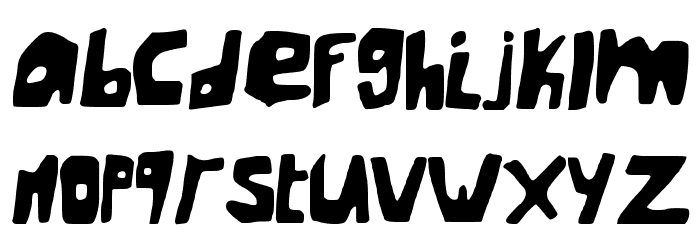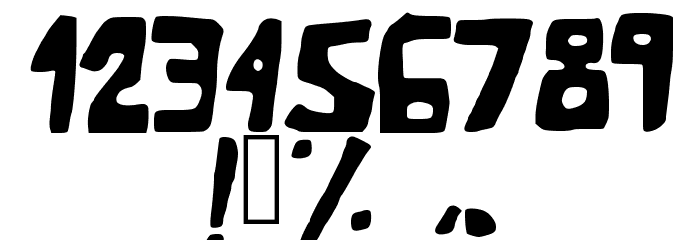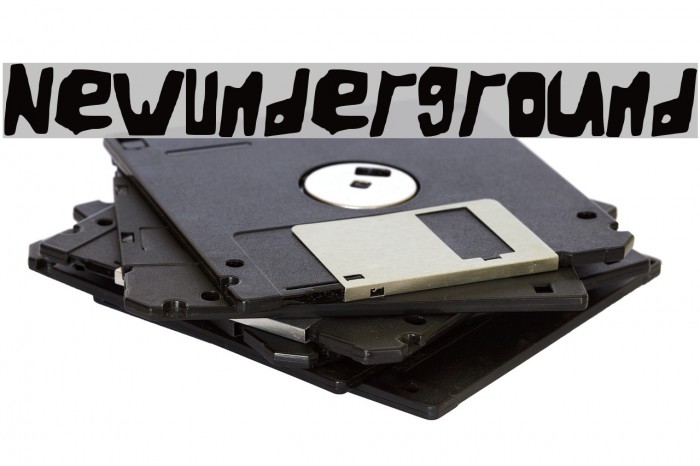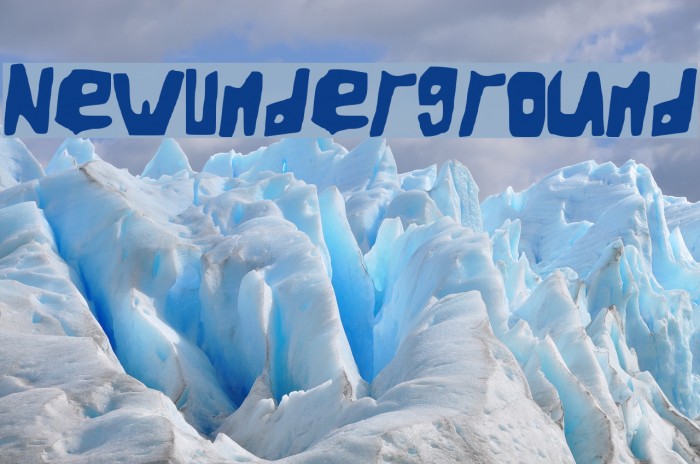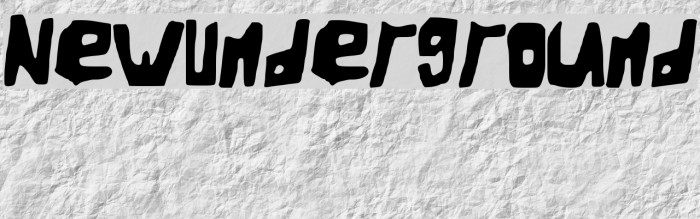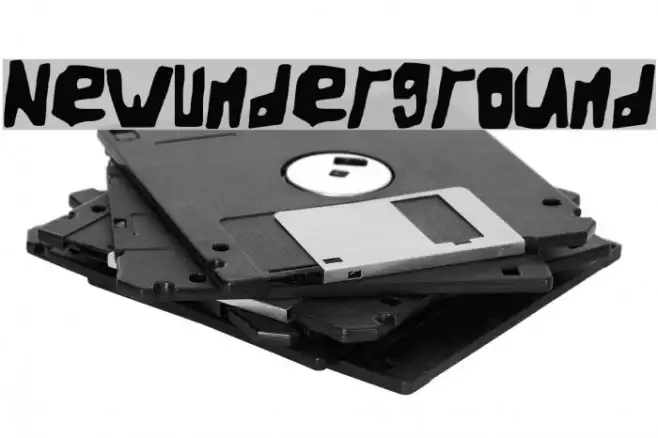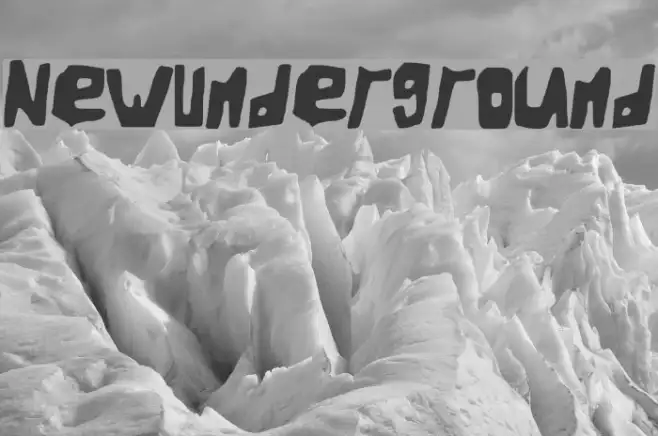
NewUnderground Font
This font features a bold and dynamic style with a distinctly urban and edgy feel. The characters are thick and irregular, giving them a hand-drawn appearance that suggests movement and energy. The uppercase and lowercase letters maintain a consistent weight, while the numbers and special characters follow the same robust design. The font's unique character shapes and bold presence make it stand out, ideal for projects that require a strong visual impact. Its artistic flair and unconventional forms make it suitable for creative and modern applications.
A bold, urban-style font with a hand-drawn, energetic appearance.
- Proposed Projects: Ideal for street art designs, music album covers, posters, and branding that requires a bold statement.